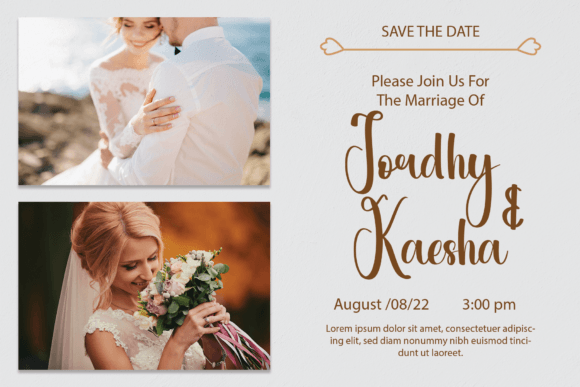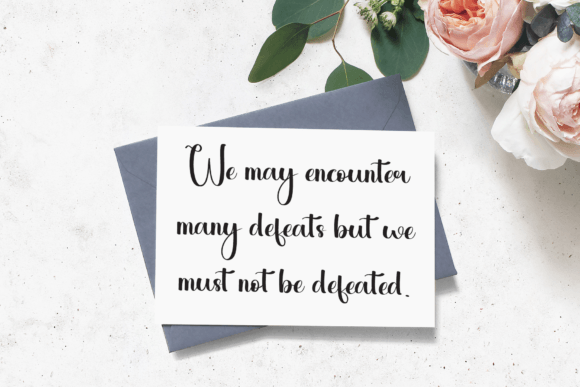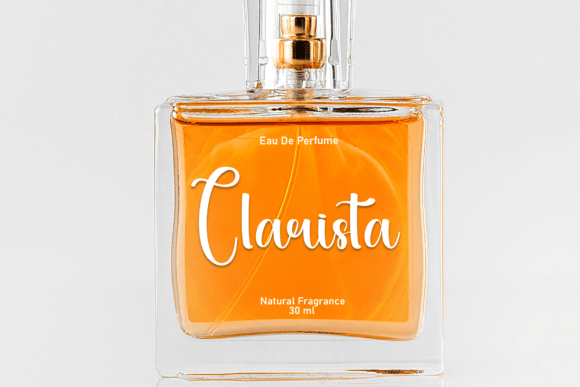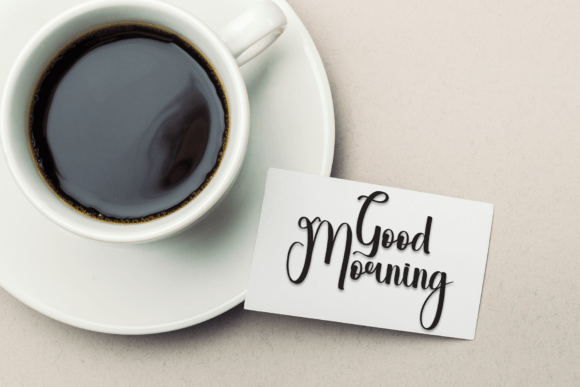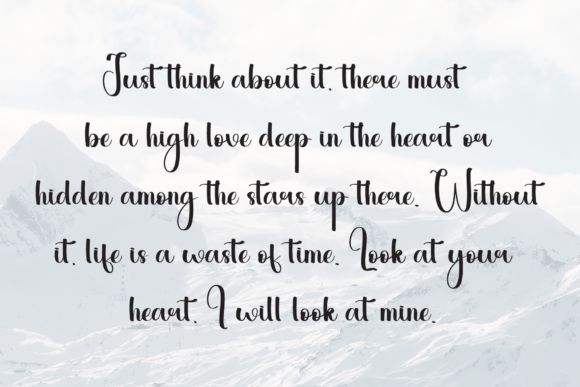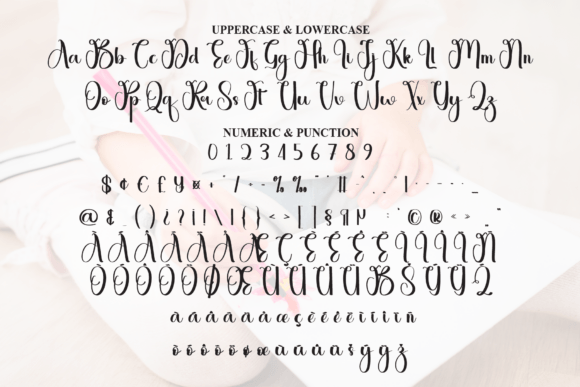
Meet Your New Design BFF: Baby Signature Font
You know that feeling when you’re brainstorming ideas for a special project, and you need that one extra something to make it truly special? That’s exactly what happened when our team discovered the Baby Signature Font – a charmingly personable handwritten display font that adds a touch of whimsy and warmth to any design.
Whether you’re crafting wedding invitations, designing greeting cards, or working on a creative project that needs a dash of joy, the Baby Signature Font is the perfect calligraphy companion. Its cute and playful demeanor brings a delightful disposition to your designs, making it an invaluable asset for designers looking to add a personal touch to their work.
Baby Signature Font Key Features
- Unique Characteristics: The Baby Signature Font is designed to resemble a baby’s handwriting, with irregular lines, curves, and flourishes. It’s perfect for creating a personal and endearing touch in designs.
- Legibility: The font is designed to be highly legible, even at small font sizes, making it ideal for use in invitations, labels, and other small-scale designs.
- Scalability: The font is designed to scale well, maintaining its charm and character even when enlarged or reduced in size.
Baby Signature Font Review
As a designer, I’ve had the opportunity to work with various fonts, and I must say, the Baby Signature Font is an interesting choice. Here’s my honest review.
- The font’s uniqueness is a major plus. It stands out from the crowd and can add a touch of whimsy to your designs.
- The Baby Signature Font is highly customizable, allowing you to adjust the font size, color, and style to fit your needs.
- It’s great for creating baby-themed designs, such as nursery decor, baby shower invitations, and more.
- The font may not be suitable for professional or formal designs, as it can come across as too playful or childish.
- The font’s readability can be a concern, especially at smaller font sizes. The characters may become too condensed, making it difficult to decipher.
- The font’s availability in various font styles and weights is limited, which can restrict its versatility.
Overall, the Baby Signature Font is a fun and playful choice for baby-themed designs. While it has its limitations, it can be a great addition to your design toolkit. Just be mindful of its potential drawbacks and use it wisely.
For the best results, use the Baby Signature Font with bold or italic styles to add emphasis to the text. You can also experiment with different font sizes and colors to create a visually appealing design.
The Baby Signature Font is commonly used for:
- Personalized baby gifts, such as blankets and onesies.
- Baby shower invitations and decorations.
- Customized baby books and photo albums.
Alternatives to Baby Signature Font
Lato is a sans-serif font that is highly legible and versatile. It’s ideal for use in digital and print media, making it a great alternative to Baby Signature Font for designers who need a clean and modern look. Lato has a more geometric feel than Baby Signature Font, but it’s still approachable and friendly. It’s a great choice for headings and body text.
Great Vibes is a beautiful script font that’s perfect for designers who want to add a touch of elegance to their work. It’s similar to Baby Signature Font in its cursive feel, but it’s more refined and sophisticated. Great Vibes is ideal for use in branding, advertising, and editorial design, where a touch of whimsy is needed. It’s a great choice for designers who want to create a sense of romance and luxury.
Amarante
Amarante is a beautiful script font that’s similar to Baby Signature Font in its flowing, handwritten feel. However, it’s more refined and elegant, making it a great choice for designers who want to create a sense of sophistication and luxury. Amarante is ideal for use in branding, advertising, and editorial design, where a touch of whimsy is needed. It’s a great choice for designers who want to create a sense of romance and elegance.